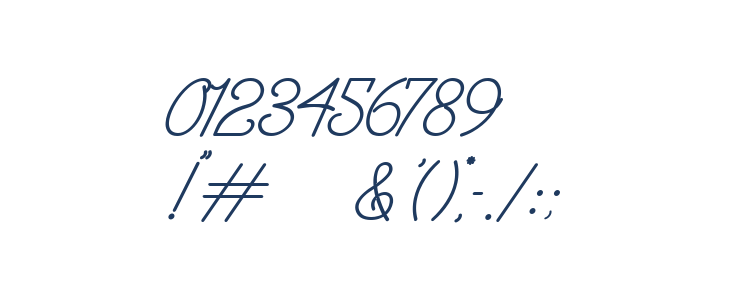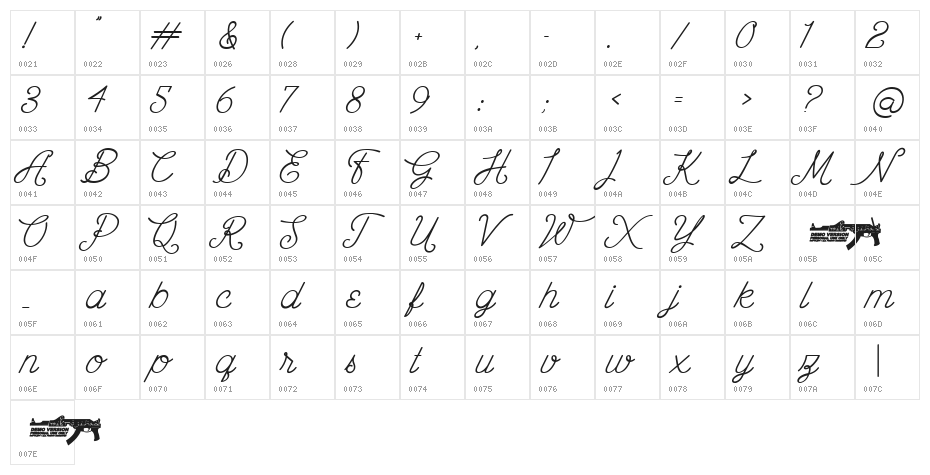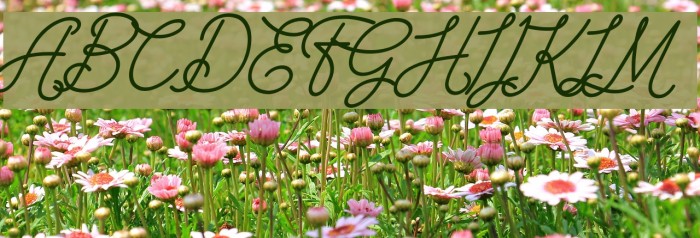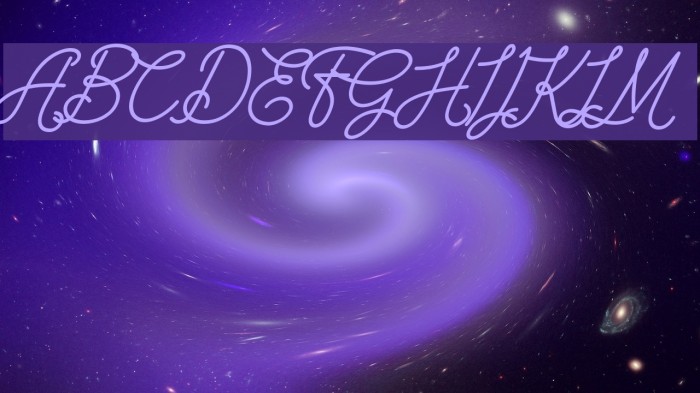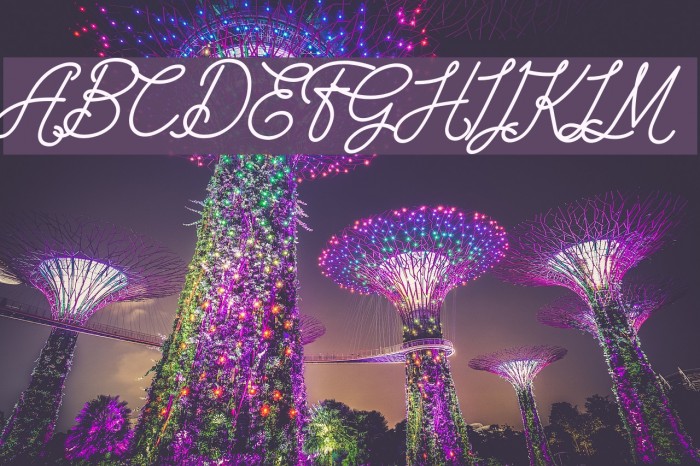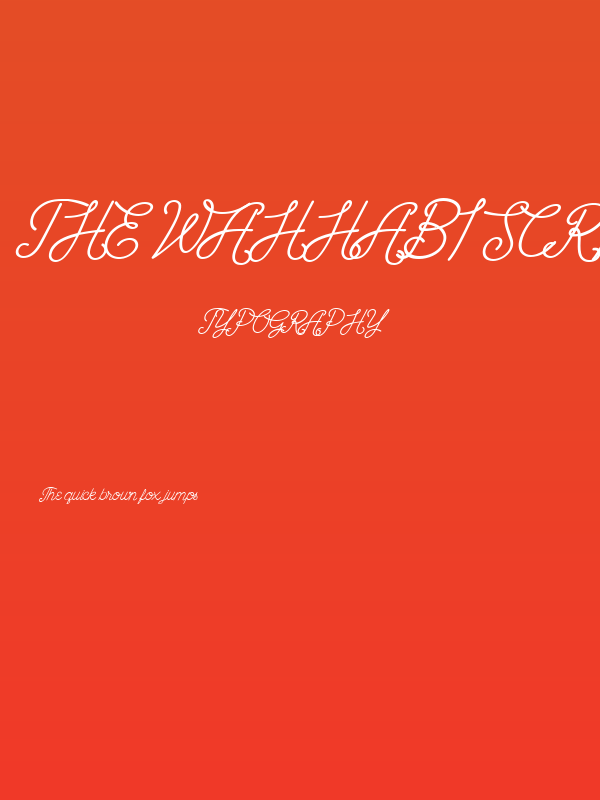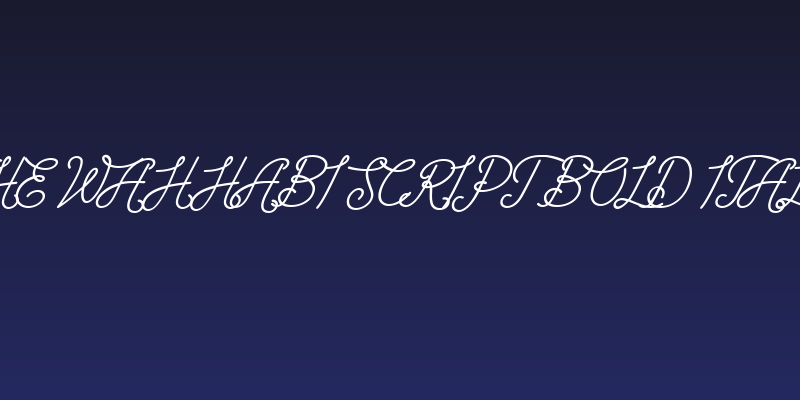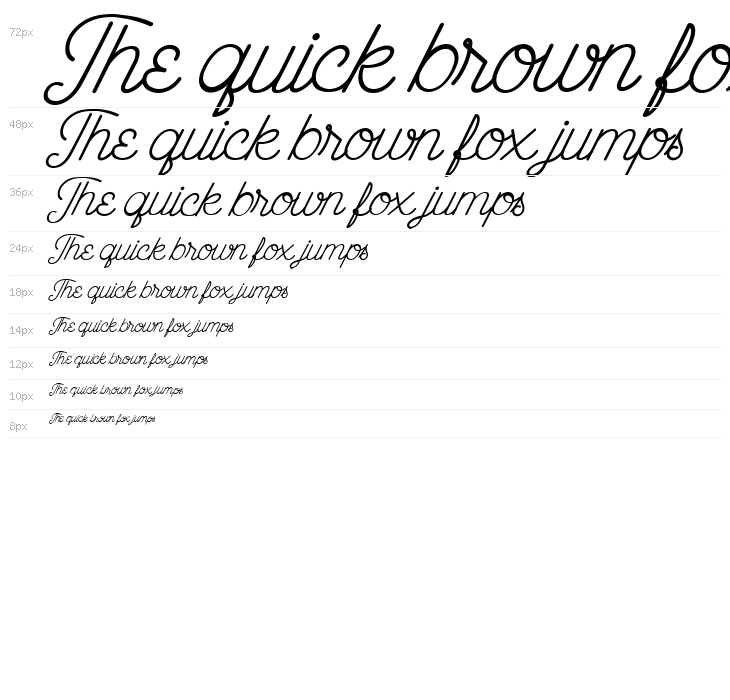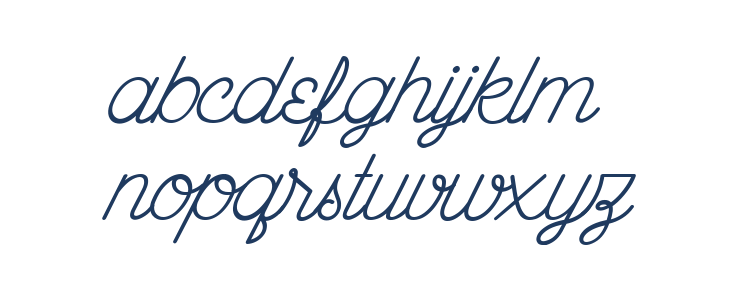
The Wahhabi Script Bold Italic Font
The Wahhabi Script Bold Italic Description
This script font exudes elegance and fluidity, characterized by its bold and italicized strokes. The letters are interconnected, giving a seamless and flowing appearance reminiscent of traditional calligraphy. The uppercase letters are ornate, with flourishes that enhance their decorative appeal, while the lowercase letters maintain a consistent rhythm and balance. Numbers and special characters are crafted with the same attention to detail, ensuring uniformity across the font. The overall design is both sophisticated and approachable, making it suitable for a variety of creative applications.